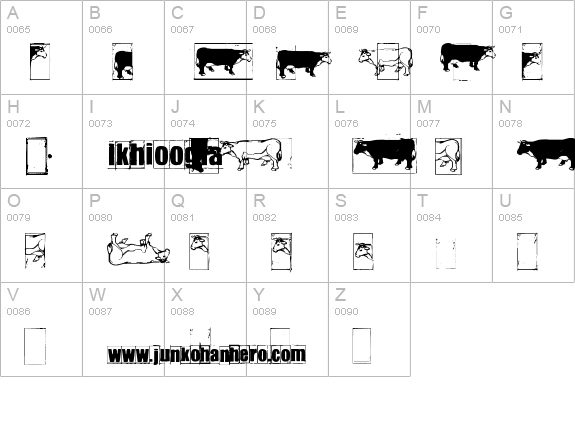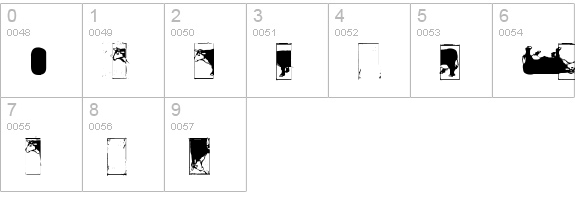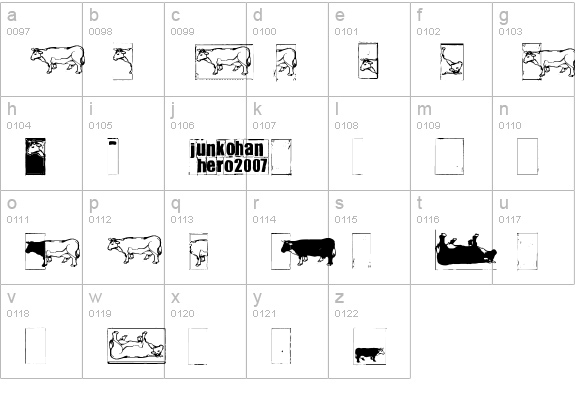
IKHIOOGLAcow Font Details
Introducing IKHIOOGLAcow font - a whimsical and playful typeface that will add a touch of fun to your projects. This unique font features quirky cow-inspired characters that are perfect for creating eye-catching designs. Whether you're working on a children's book, a greeting card, or a branding project, IKHIOOGLAcow font will surely make your text stand out. The best part? IKHIOOGLAcow font is available for free download at FontsMarket.com. You can easily access this charming font and start using it in your creative endeavors without any cost. Don't miss out on the opportunity to add a delightful touch to your designs with IKHIOOGLAcow font - download it today and let your creativity soar!